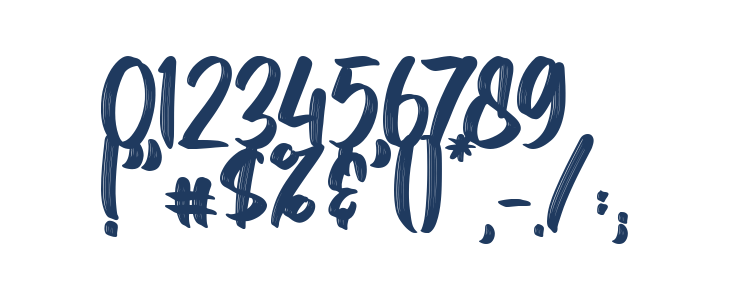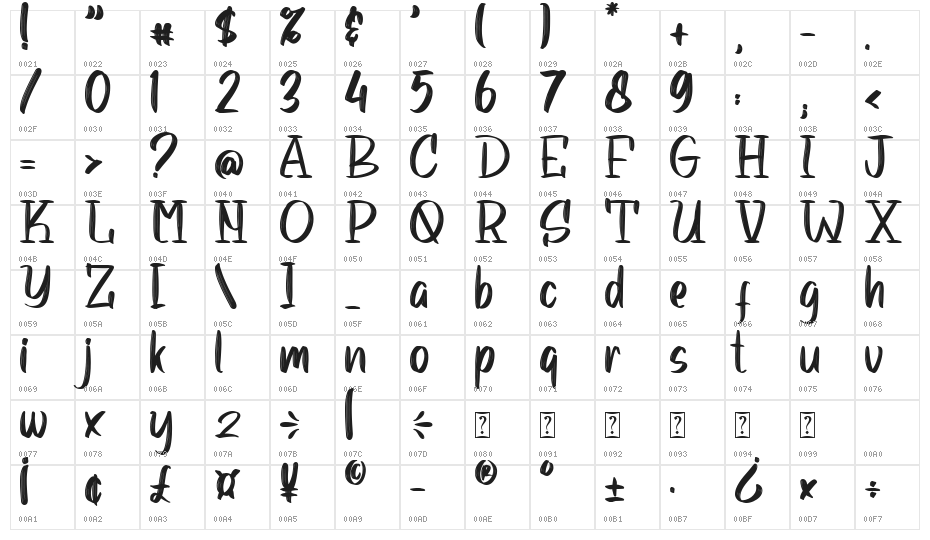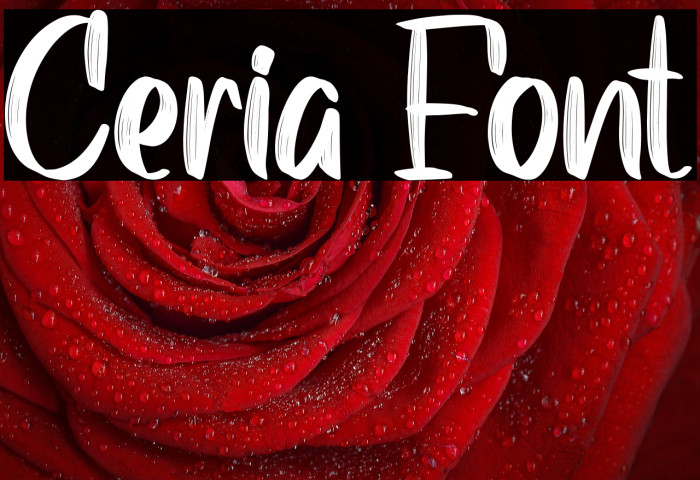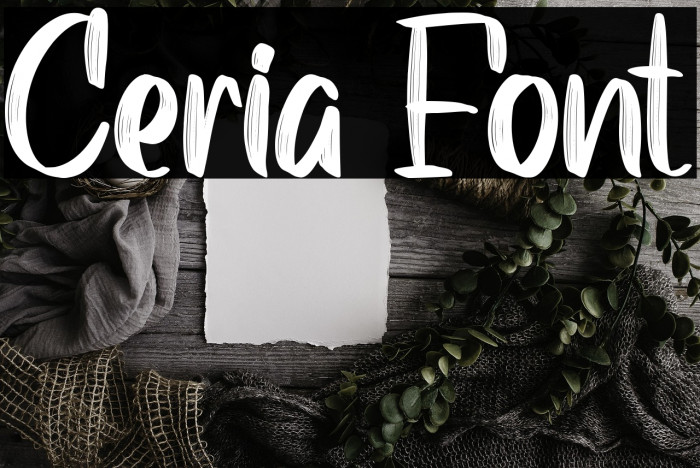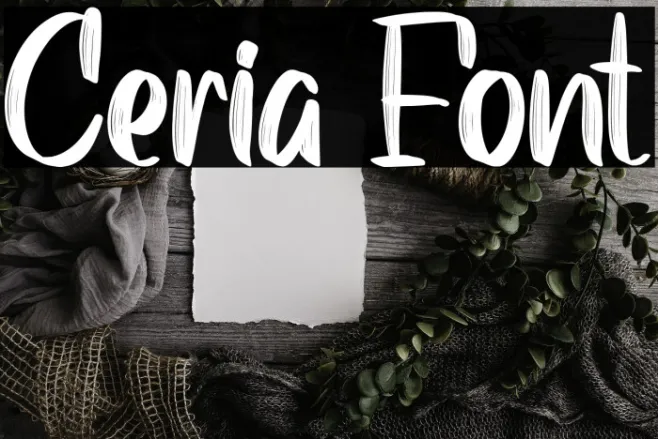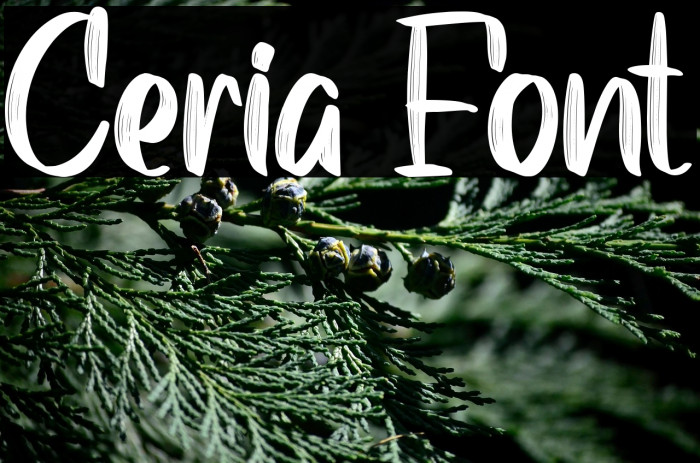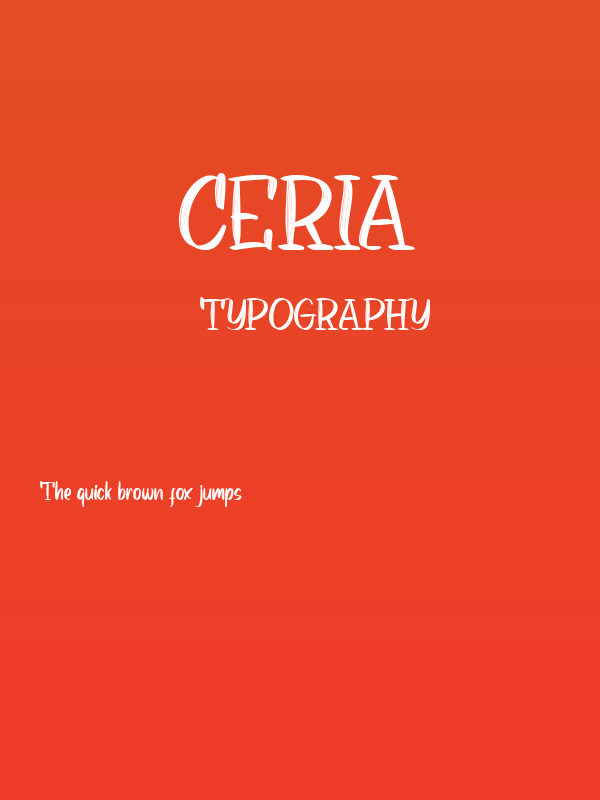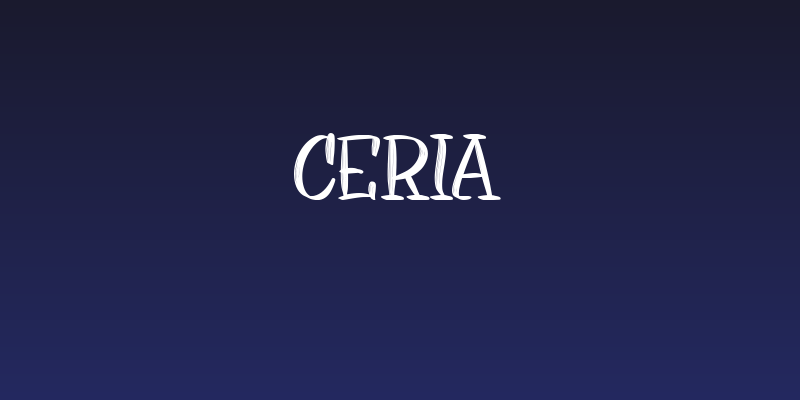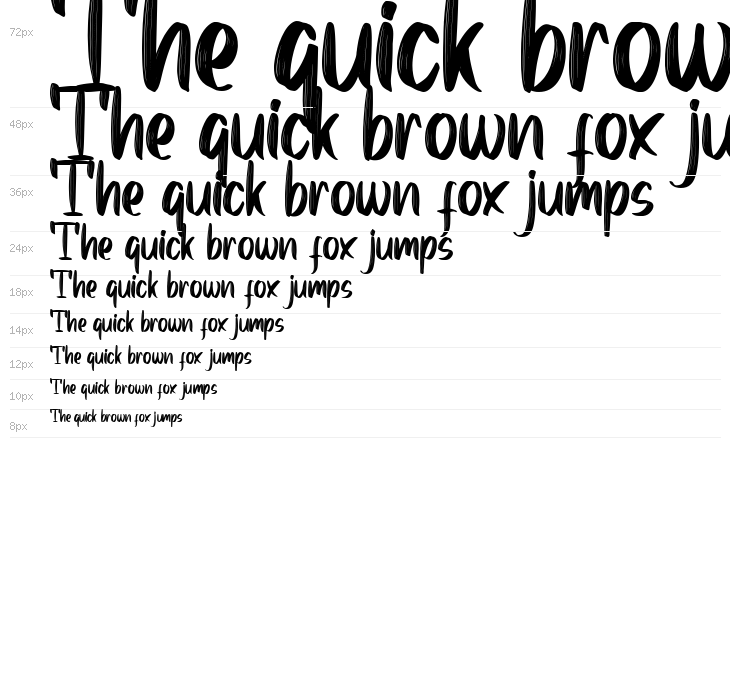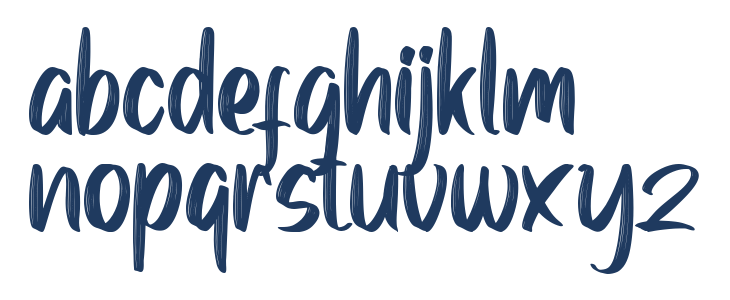
Ceria Font
Ceria Description
This font features a bold, expressive style with a handwritten appearance. The uppercase letters are slightly condensed with a playful, artistic flair, while the lowercase letters maintain a consistent, flowing script-like quality. The numbers and special characters are equally bold and dynamic, adding to the overall lively feel. The strokes are thick and textured, giving a brush-like effect that enhances its handcrafted look. This font is ideal for projects that require a personal touch or a creative, informal vibe.